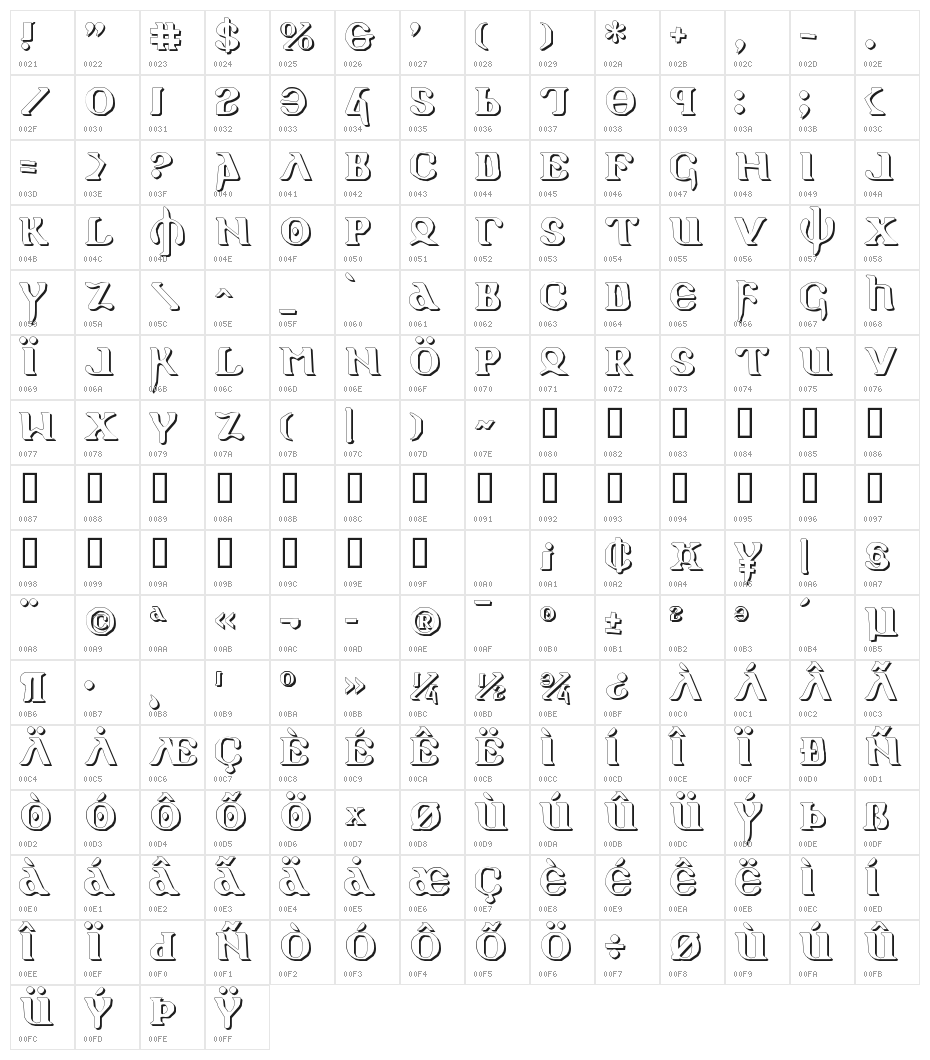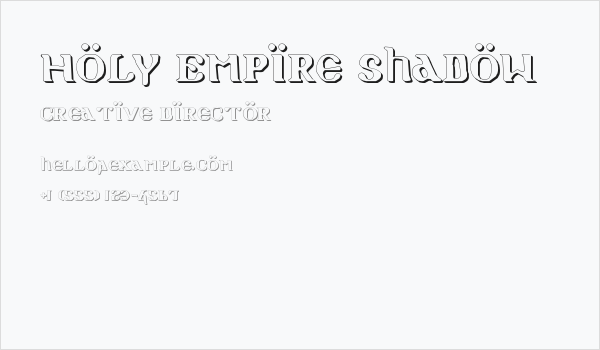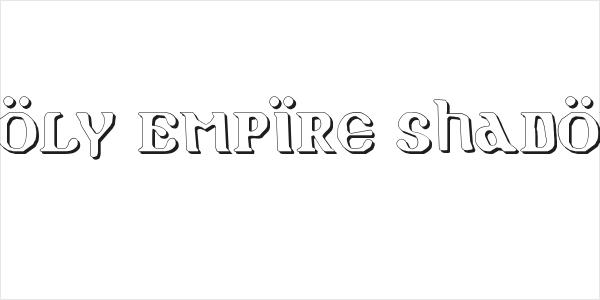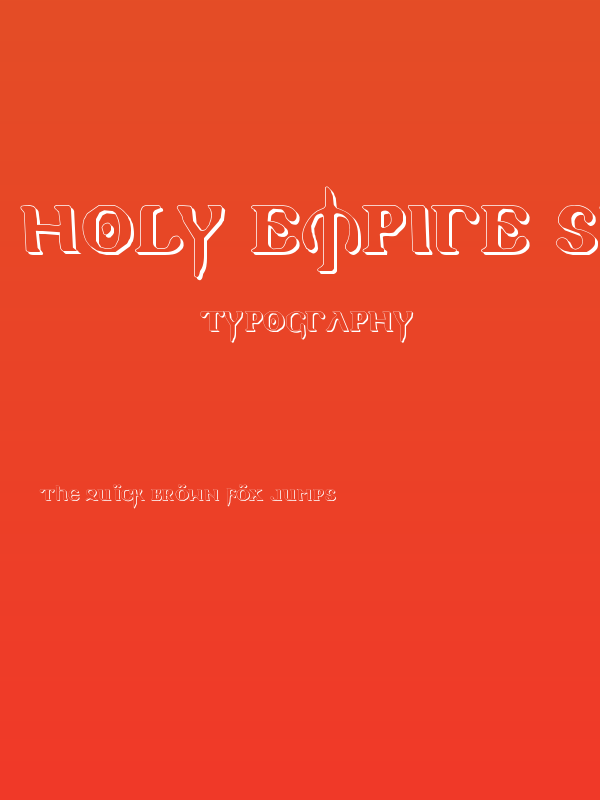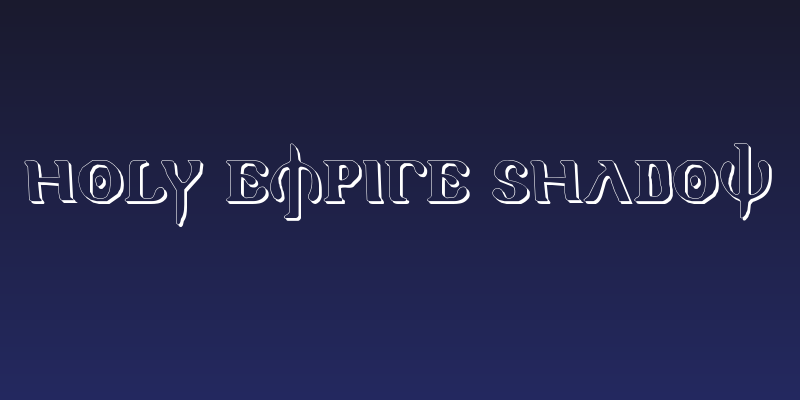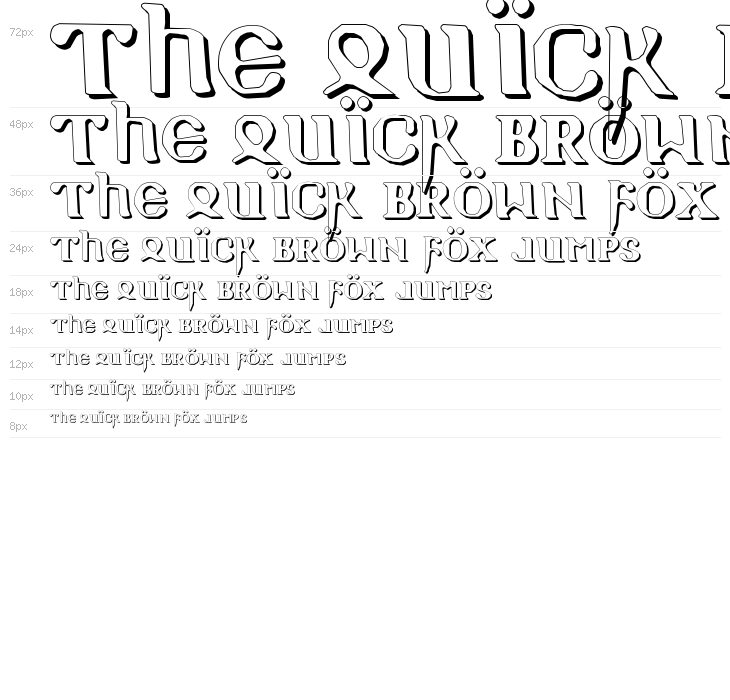
Holy Empire Shadow Font
Holy Empire Shadow Description
This font features a bold, shadowed style with a distinct medieval and gothic influence. The uppercase letters are characterized by sharp angles and dramatic serifs, giving them a strong, authoritative presence. The lowercase letters maintain the same stylistic elements, ensuring consistency throughout the typeface. Numbers and special characters are designed with the same attention to detail, making them suitable for a variety of uses. The shadow effect adds depth and dimension, enhancing the overall visual impact. This font is ideal for projects that require a historical or dramatic flair, such as themed posters, book covers, or branding for events with a medieval or fantasy theme.